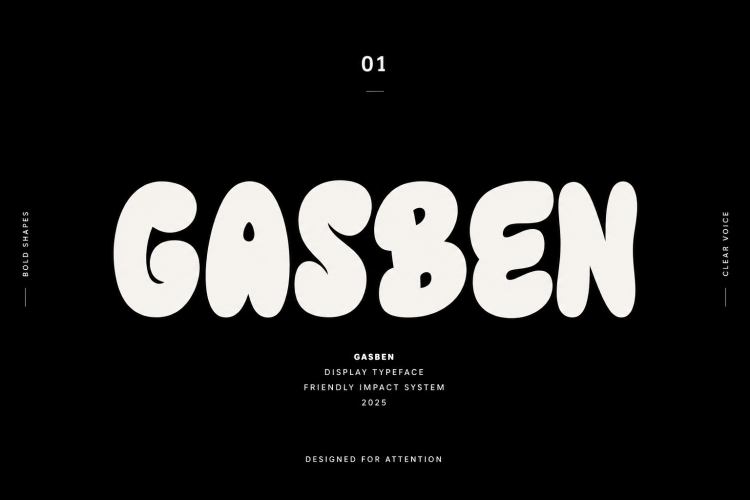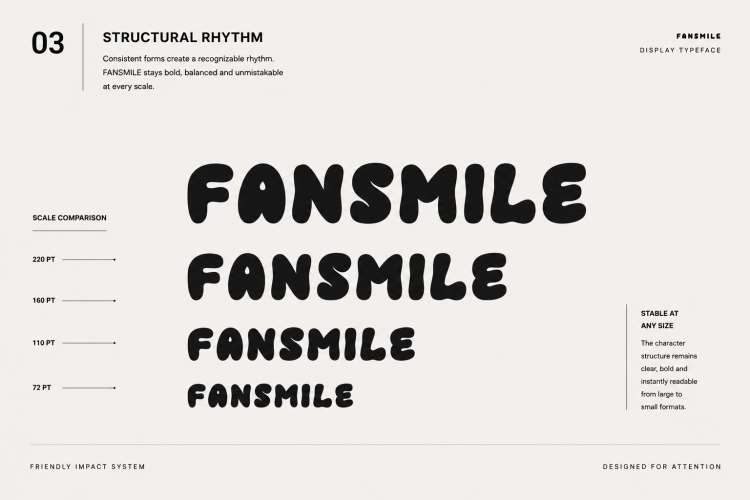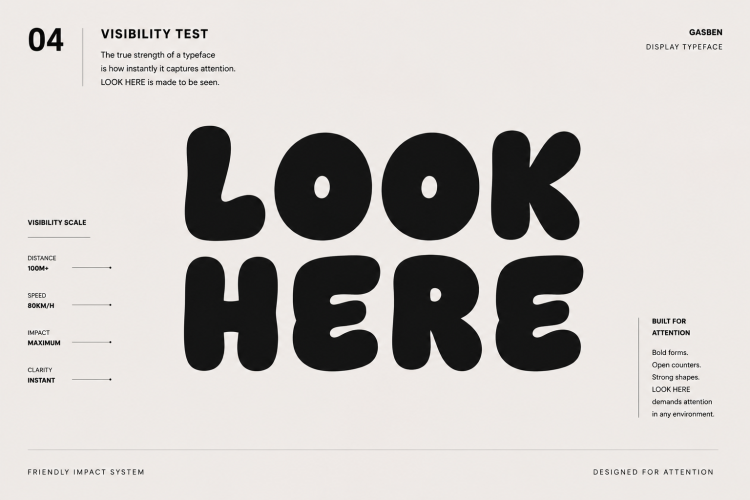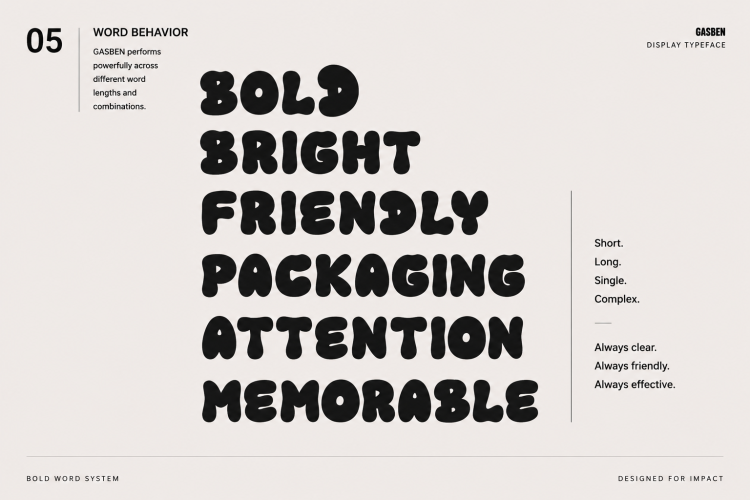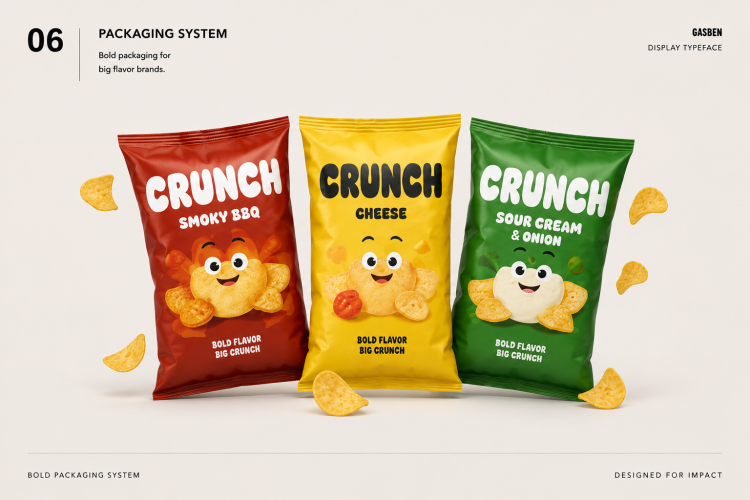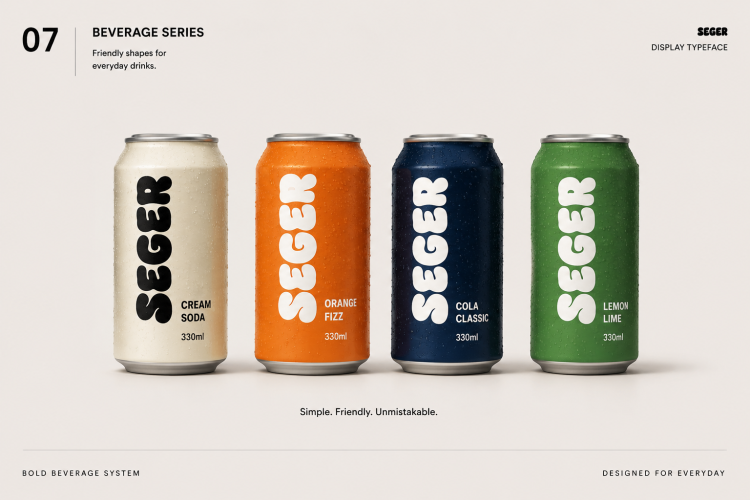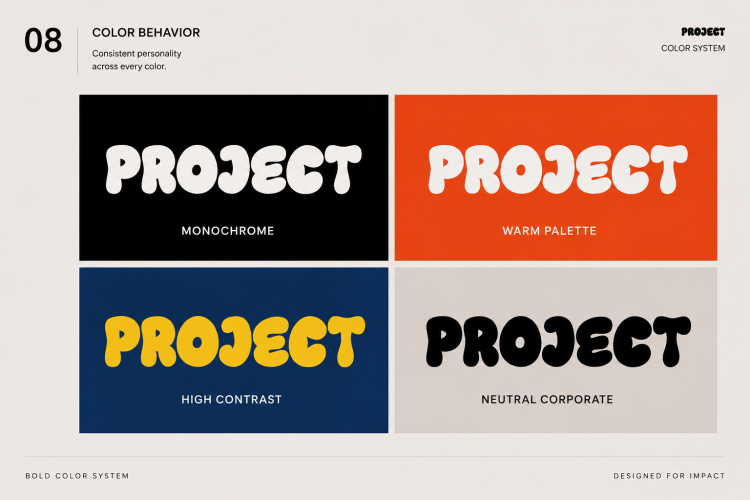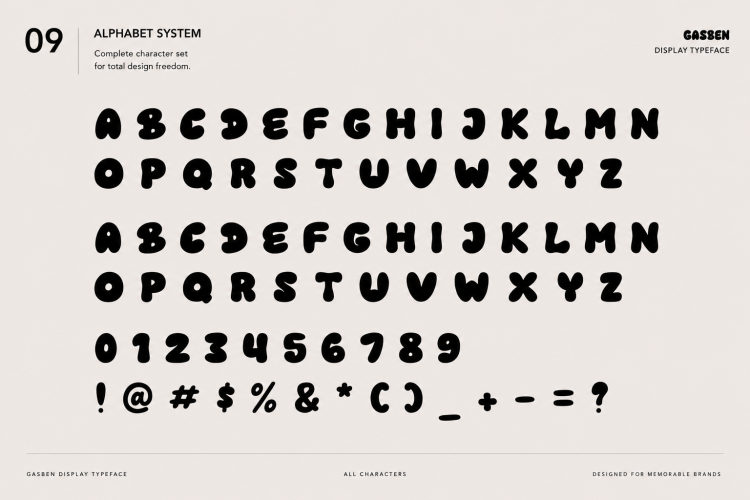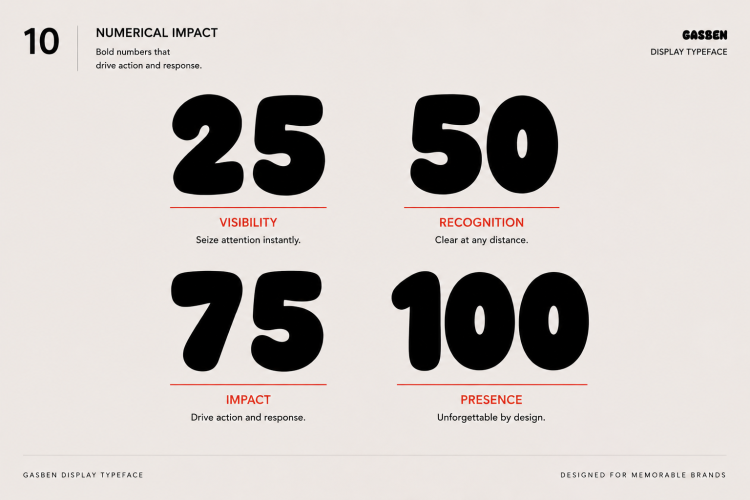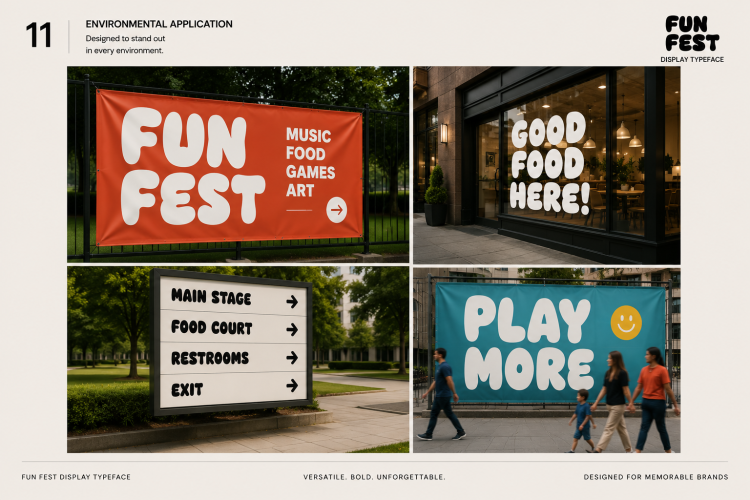
Meet GASBEN, a bold display typeface that combines playful energy with strong visual presence.
Featuring rounded bubble-inspired letterforms, GASBEN is designed to create immediate recognition while maintaining excellent readability. Its friendly shapes make brands feel approachable, memorable, and full of personality, while its oversized proportions ensure standout performance across packaging, advertising, signage, social media, and promotional materials.
Whether you’re building a snack brand, children’s product line, festival identity, toy packaging, beverage label, event campaign, or vibrant lifestyle brand, GASBEN helps transform typography into the hero of the design.
Perfect for:
- Packaging Design
- Food & Beverage Branding
- Children’s Brands
- Event Graphics
- Posters & Advertising
- Social Media Content
- Merchandise Design
- Signage Systems
- Logo Design
- Editorial Headlines
GASBEN is bold, friendly, expressive, and built to leave a lasting impression.
Key Features
- Uppercase Characters
- Numerals & Punctuation
- Multilingual Support
- Playful Bubble Letterforms
- High Impact Display Design
- Strong Brand Recognition
- Packaging-Friendly Typography
- Easy Readability
- Modern Commercial Appeal